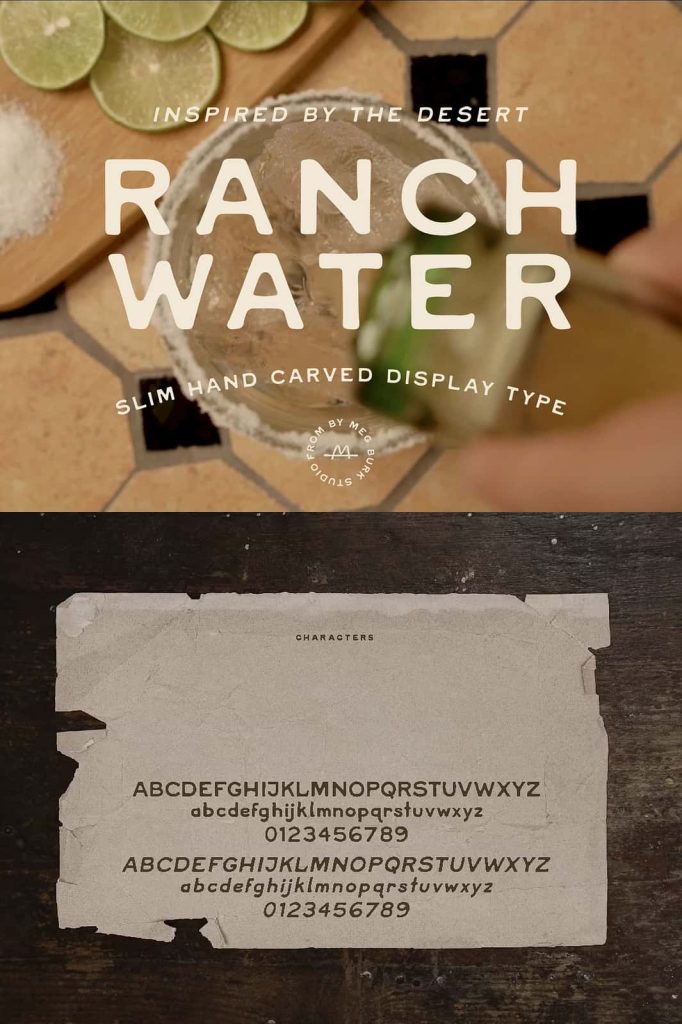
Ranch Water Font – A Modern Take on Western Authenticity
Ranch Water Font is a slimmer, more refined evolution of the classic cowboy-style typeface. Designed for creators who love the rustic charm of the Old West but want a cleaner, more adaptable version, Ranch Water combines authenticity with versatility. This handcrafted font captures the warmth, texture, and spirit of the frontier while delivering a balanced design suitable for both modern and vintage aesthetics. Whether used for branding, signage, or packaging, Ranch Water adds a down-to-earth yet stylish appeal to every project.
The Evolution of a Western Classic
Inspired by its predecessor, the popular Cowboy font, Ranch Water was developed to meet the growing demand for a more refined and flexible Western-style typeface. While it maintains the rugged essence of the American frontier, Ranch Water introduces smoother lines, improved balance, and a more approachable tone. Its well-crafted letterforms pay homage to classic Western design while embracing the simplicity and clarity needed for modern applications.
The result is a font that feels both vintage and contemporary—a perfect harmony between handcrafted tradition and modern readability. Whether you’re designing for a rustic brand or a high-end product inspired by Western aesthetics, Ranch Water helps your visuals stand out with a unique blend of character and craftsmanship.
Authenticity Meets Modern Versatility
Ranch Water was created to offer more flexibility without losing its Western roots. Unlike many display fonts that rely on uppercase letters, Ranch Water includes a full set of lowercase characters, enhancing its usability across various design contexts. This thoughtful addition allows for smoother typography in branding, packaging, and editorial design, making it perfect for projects that demand both personality and professionalism.
Each letterform reflects the artisanal touch of hand-carved wood type, giving your designs a tactile, handcrafted look. Whether used for vintage product labels, rustic logos, apparel designs, or signage, Ranch Water adds depth and authenticity to your creative work. Its refined structure makes it suitable not only for themed Western designs but also for modern brands seeking a hint of rugged individuality.
Designed for Rustic and Down-to-Earth Projects
Ranch Water Font shines in settings that call for authenticity and character. Its weathered charm and refined construction make it ideal for craft breweries, coffee brands, outdoor products, farm-to-table restaurants, and handmade goods. The font’s warm, approachable personality communicates honesty and craftsmanship—qualities that resonate deeply with audiences who value tradition and quality.
Pair Ranch Water with earthy color palettes, natural textures, and vintage-inspired layouts to create designs that feel grounded and genuine. Its balance of structure and spontaneity ensures that it complements both minimalist and richly detailed compositions.
Handcrafted Charm with Professional Precision
Every curve and contour of Ranch Water was carefully shaped to maintain the soul of the West while achieving optimal clarity and consistency. The slimmer proportions make it easier to read and more adaptable for modern branding applications. Whether you’re designing a bold headline or a subtle label, Ranch Water’s fine details bring life to the text without overpowering the overall design.
This refined approach to Western typography gives designers the freedom to create authentic yet elegant designs. The handcrafted texture ensures that every project feels personal and rooted in story, while the modern proportions make it perfectly suited for digital and print environments alike.
Why Designers Choose Ranch Water Font
- Refined evolution of a classic cowboy-style typeface
- Features lowercase letters for greater design flexibility
- Perfect for rustic, vintage, and handcrafted projects
- Ideal for branding, signage, apparel, and product labels
- Balances Western authenticity with modern readability
Designers who use Ranch Water love its ability to bridge the gap between nostalgia and modernity. It embodies the essence of the American West—freedom, craftsmanship, and authenticity—while delivering a polished look suitable for today’s design standards. This combination makes it a timeless choice for any creative who wants to tell a story through typography.
Conclusion: Bring Western Elegance to Modern Design
Ranch Water Font captures the rugged beauty and honest craftsmanship of the Old West while introducing a more refined, contemporary feel. It’s a typeface built for storytellers, artisans, and brands that value authenticity and heritage. From rustic product packaging to bold brand identities, Ranch Water transforms ordinary text into visual storytelling with personality and warmth. If you’re looking for a Western-inspired font that’s both handcrafted and modern, Ranch Water is the perfect choice to elevate your designs with timeless character and charm.